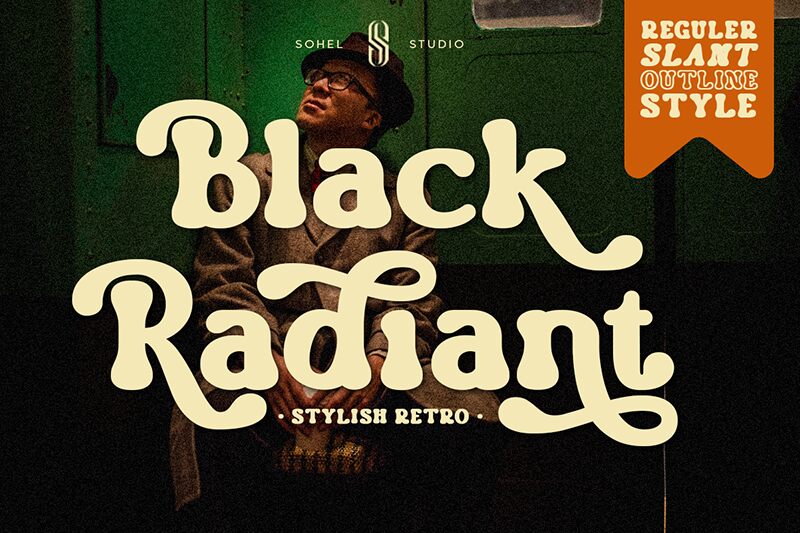
Black Radiant font is what allows the past to be revisited in style alongside all its familiarity. This free groovy display font from Sohel Studio packs a punch with every letter it brings, delivering strong slab serifs, smooth curves, and bold character layouts that immediately appear in headlines and logotypes.
Retro-themed projects can always make use of fonts like Black Radiant including signages, posters for movies or apparel shops, retro video games covers, branding and packaging designs for foods and drinks, product labels and book covers. Typography artworks are also great options to try out ideas with the versatile font.